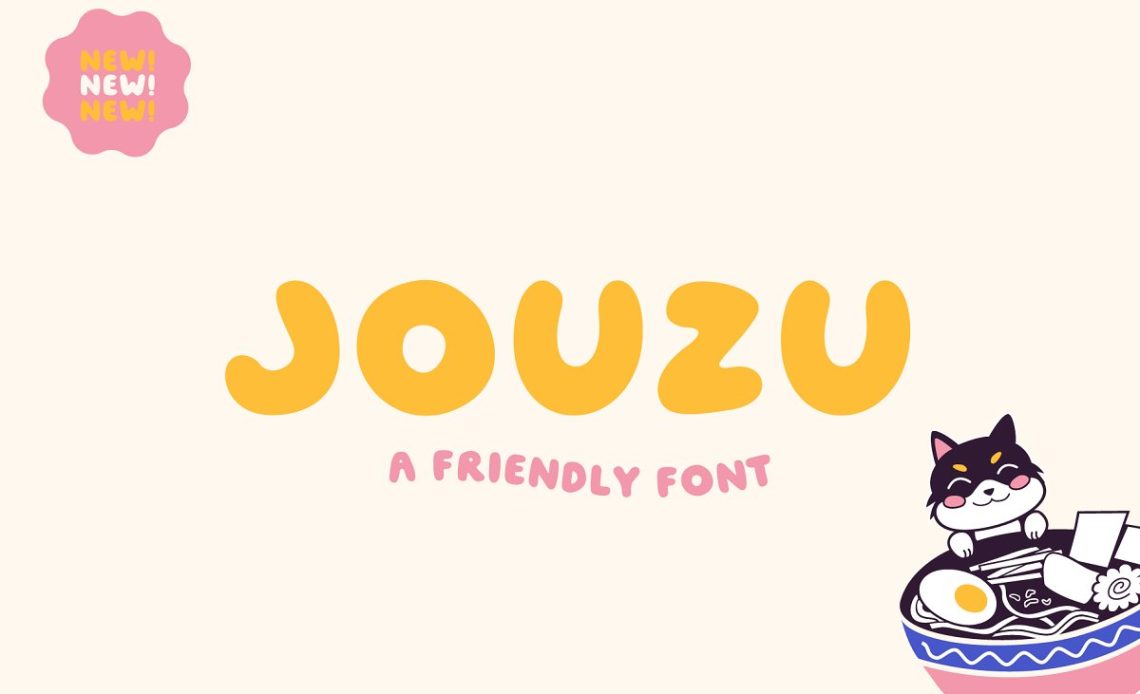
Looking for a friendly and fun font that your kids will love? Look no further than JOUZU - the latest addition to our fonts collection! Created by the talented designer Tamara Hall, JOUZU is a display font that's perfect for kids books, cards, quotes, and more.
With JOUZU, you'll get a font that's easy-to-read and approachable, with a laidback vibe that's perfect for any project. Whether you're creating packaging, logos, art, or anything else you can think of, JOUZU is sure to elevate your designs and make them stand out.
In addition to its uppercase letters, numbers, and basic punctuation, JOUZU also comes with Spanish punctuation and letters - a bonus for those who need a font that's versatile and adaptable to different languages.